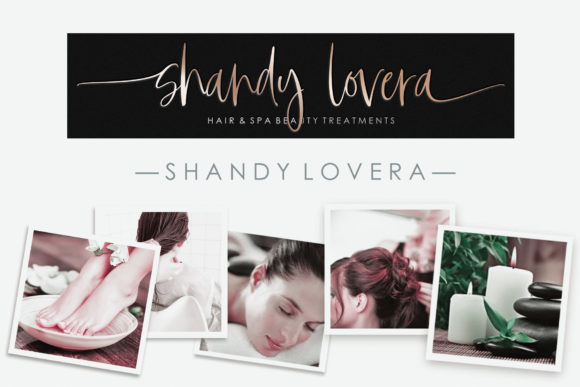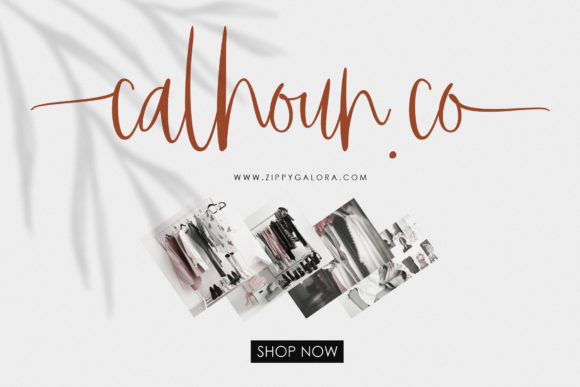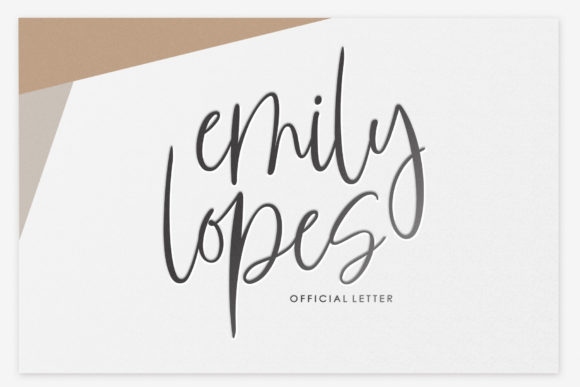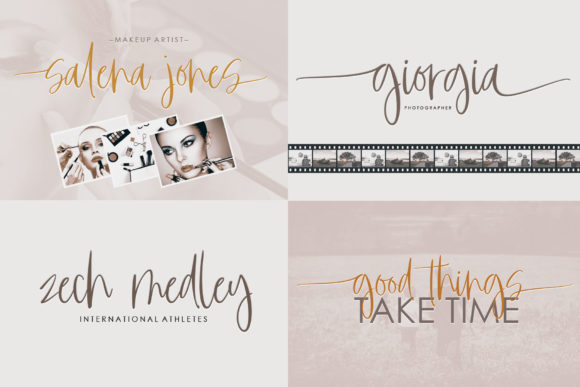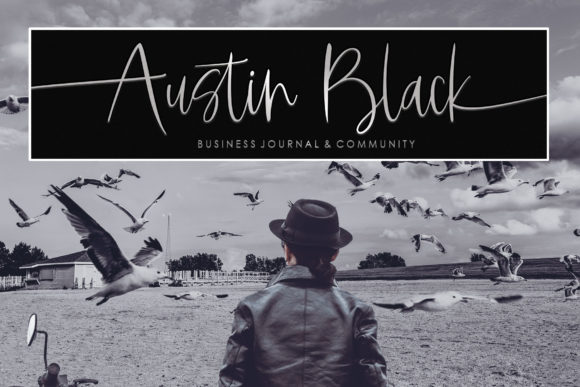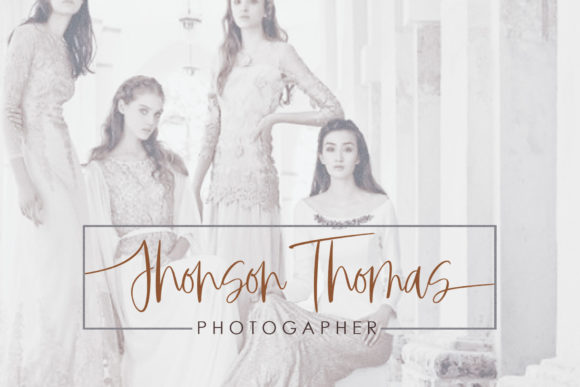
The Sweetest Script: Unveiling the Cendonagh Font
Have you ever been in the midst of a creative project, and the perfect font just seems to be the missing piece that brings it all together? For designers, finding the right font can be a game-changer, elevating a design from good to great. It’s in these moments that we stumble upon the perfect combination of style and substance, and our ideas come to life in a way that we never thought possible.
Enter the Cendonagh Font, a simple yet elegant script that is sure to turn any design idea into a true masterpiece. With its sweet and delicate charm, this font is perfect for adding a touch of whimsy and sophistication to your designs. Whether you’re working on a wedding invitation, a branding project, or a blog post, the Cendonagh Font is sure to bring a smile to your face and a touch of magic to your design.
For designers, the Cendonagh Font is a valuable addition to any toolkit. Its versatility and charm make it a go-to choice for a wide range of projects, and its ease of use ensures that you can focus on what matters most – bringing your ideas to life.
Cendonagh Font Key Features
- Size: Multi-weight font family with 12 weights, ranging from 100 to 900
- Resolution: High-resolution fonts suitable for print and digital use
- Unique Characteristics: Elegant, modern script font with a touch of cursive flair
- Font Pairing: Ideal for pairing with sans-serif fonts to create a balanced and harmonious typography
Cendonagh Font Review
I recently had the chance to dive into the Cendonagh font, and I must say it’s a unique blend of elegance and playfulness. Here are some of the things that stood out to me:
- ✨ The font’s bold weights are particularly striking, with a strong, confident presence that’s perfect for headlines or titles.
- ✨ The font’s x-height is well-balanced, making it easy to read and understand even in smaller text sizes.
- ✨ The font’s flourishes and ornaments add a touch of whimsy and personality, making it a great choice for creative projects.
- ⚠️ The font’s light weights can feel a bit weak and washed out, particularly at smaller text sizes.
- ⚠️ The font’s irregularity can make it difficult to read in certain contexts, such as body text or long blocks of text.
Overall, I think the Cendonagh font is a great choice for projects that require a touch of personality and flair. While it may not be the best choice for every project, it’s definitely worth considering for creative or design-focused work.
For best results, pair Cendonagh Font with a clean and simple design to let the font shine.
3. Use the font’s unique features, such as its elegant curves and refined lines, to add depth and character to your design.
Cendonagh Font is perfect for:
– Luxury brand marketing materials
– High-end product packaging and labels
– Any design that requires a touch of elegance and sophistication
– Pair Cendonagh Font with a simple and clean design to let the font shine.
– Use the font’s unique features, such as its elegant curves and refined lines, to add depth and character to your design.
– Experiment with different font sizes and styles to create a unique and eye-catching look.